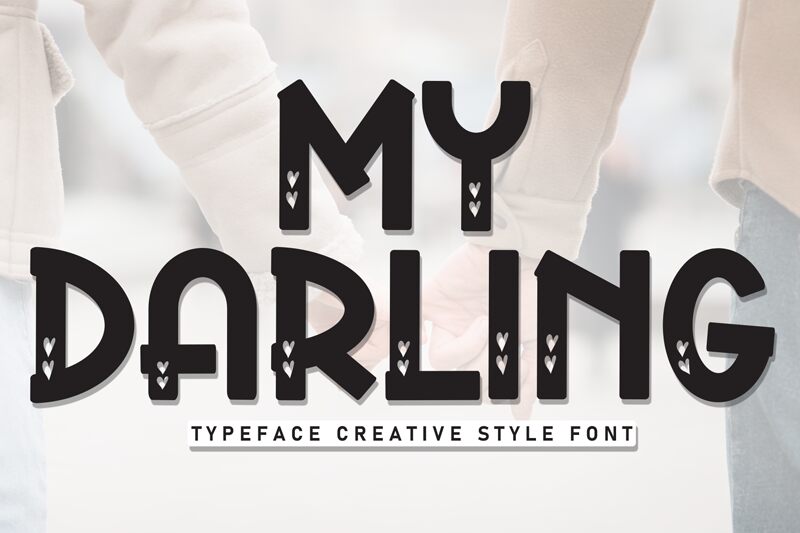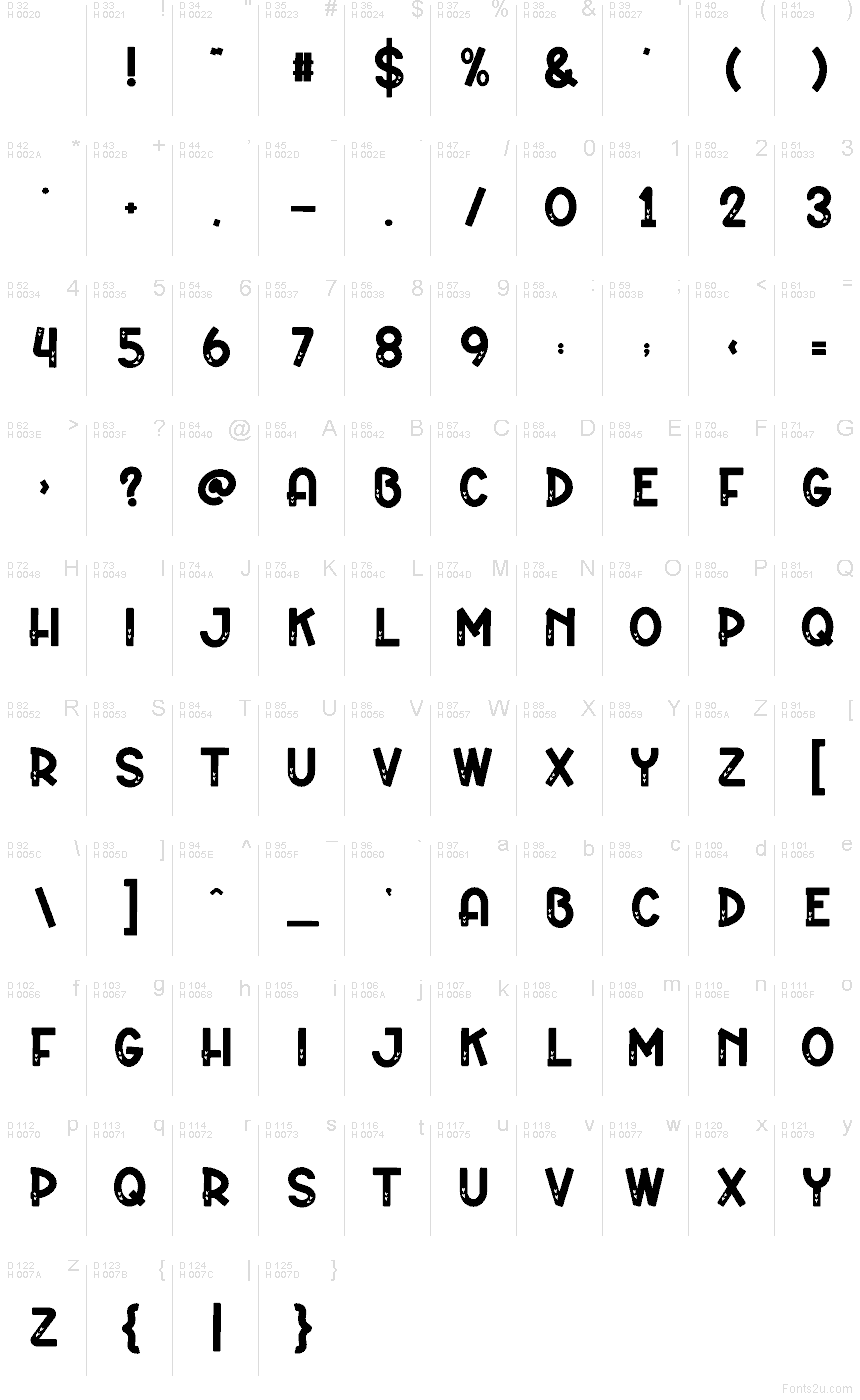
My Darling
My Darling font by Andi Moz is a free decorative Valentine holiday typeface. Bold, chunky letters with crisp edges are punched through with tiny white hearts, giving every word a cut-paper, handmade feel. The all-caps forms are compact and sturdy, so even short messages look full and cheery, like candy-box lettering ready to be passed around.
Using My Darling, it’s easy to dress up Valentine cards, classroom printables, party invitations, stickers, gift tags, scrapbooks, and social graphics. This free font reads clearly at small sizes while still feeling playful and crafty, especially against bright pinks or deep reds. For a sweet combo, pair My Darling for headlines with a simple rounded sans-serif for body text.